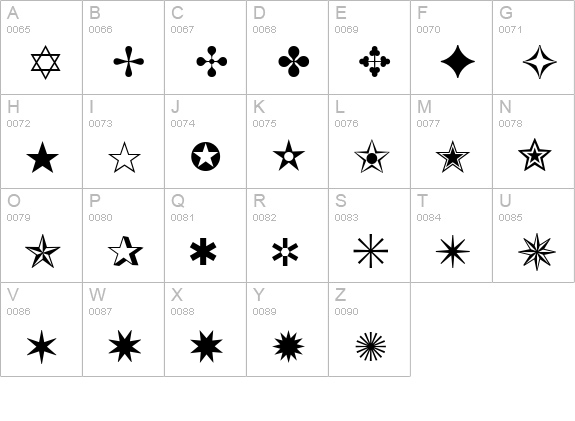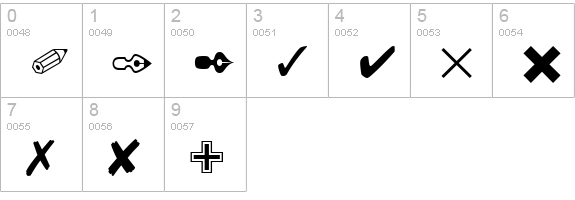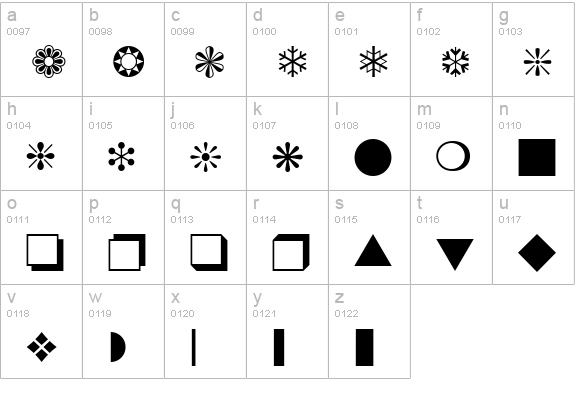
Zapf Dingbats BT font is a whimsical and versatile typeface that is perfect for adding decorative elements to your designs. With a wide range of symbols, shapes, and icons, this font allows you to easily enhance your projects with unique and eye-catching visuals. Whether you're looking to spice up a presentation, create a fun invitation, or add a special touch to your website, Zapf Dingbats BT has you covered. Best of all, this font is freely available to download at FontsMarket.com. Simply visit the website to access this delightful font and start incorporating its charming characters into your creations today. Let your creativity shine with Zapf Dingbats BT!